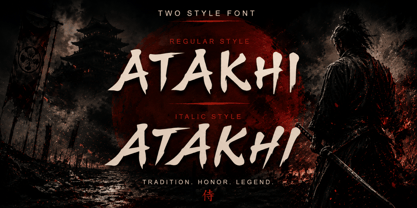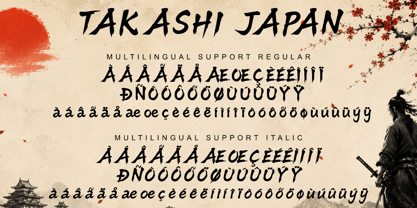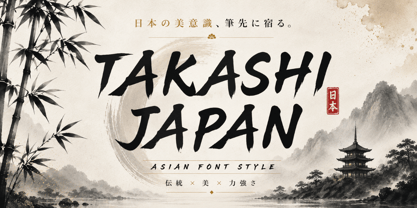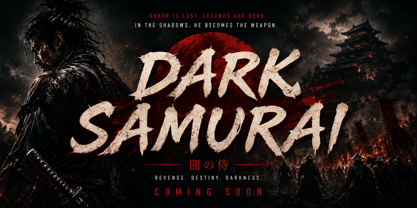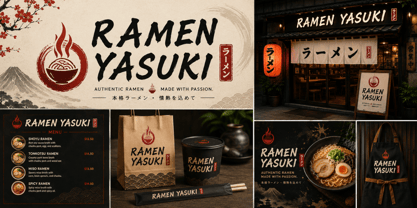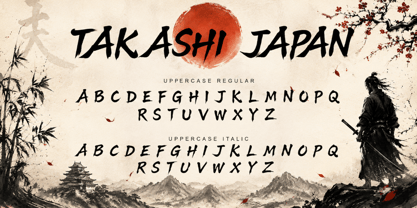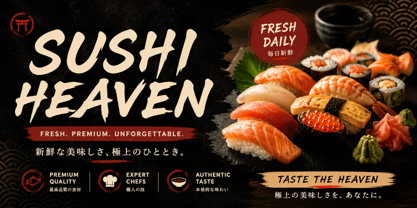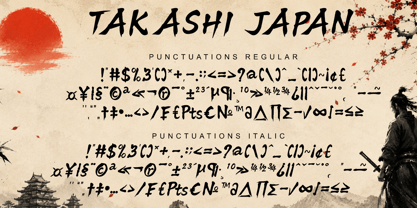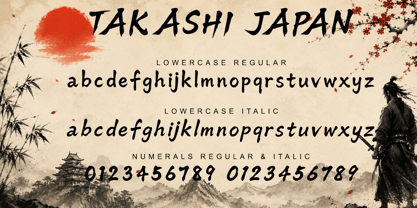
Takashi Japan
by Yoga Letter
The Takashi Japan Font Family was designed by Isroni Yoga Prasetya and published by Yoga Letter. Takashi Japan contains 1 styles. More about this family
Takashi Japan is a Japanese brush-style display font inspired by traditional samurai calligraphy. It comes in two styles: regular and italic, featuring uppercase and lowercase letters, numbers, punctuation, and multilingual support. Each character features bold, dynamic, and energetic brushstrokes, creating a strong, bold, and authentic feel. It’s perfect for Japanese-themed designs, samurai, ninja, anime, games, movie posters, Asian restaurant branding, merchandise, and even oriental cultural content. With its unique and recognizable characters, Takashi Japan delivers a seamless blend of tradition, strength, and modern aesthetics.
Designers: Isroni Yoga Prasetya
Foundry: Yoga Letter
Yoga Letter is independent Type Foundry based in Indonesia, Magelang. I'm a graphic designer who love lettering and creates some fonts with all of my depth love. I'm making creative & fresh fonts, high quality, highly recommended, and suitable for your business. I hope can be a contributor as a fonts author at MyFonts, and I will do the best to create amazing fonts.